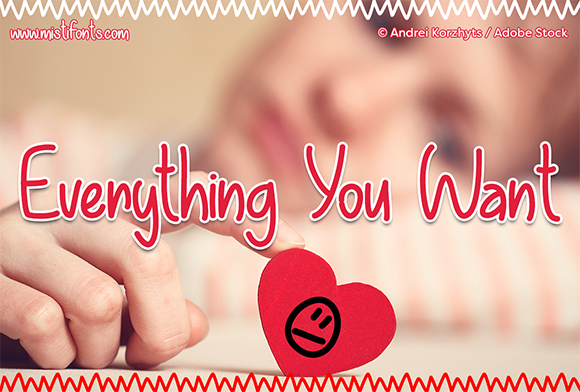
Step into a world of playful and captivating designs with Everything You Want, the extraordinary script font that will ignite your imagination and elevate your creative projects.
Crafted with meticulous attention to detail by the talented Misti, this font exudes a charming and approachable personality, making it the perfect choice for a myriad of design endeavors.
Whether you're a seasoned designer or just starting your journey in the world of typography, Everything You Want will effortlessly guide you to create stunning designs that captivate and inspire.
With its elegant curves and graceful strokes, this script font dances across your screen, carrying with it a touch of magic and wonder. Its smooth transitions and natural flow create a harmonious rhythm that will add a touch of sophistication to any project.
Imagine your designs blooming into vibrant expressions of creativity, as if each letter were a delicate flower, carefully arranged to form an enchanting bouquet. With Everything You Want, you'll have the power to transform ordinary words into extraordinary works of art.